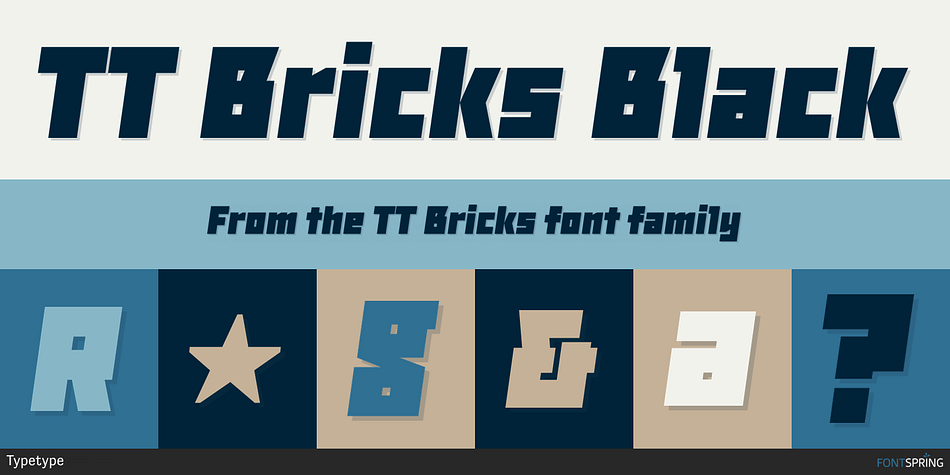
TT Bricks Black
TT Bricks is a sans serif font family. This typeface has sixteen styles and was published by Typetype.
Do you love the early Soviet visual culture as much as we do? We’ve tried going back a hundred years and rethinking the constructivist era. We’ve created an extensive fontfamily that consists of the simplest triangle and rectangle forms.
The TT Bricks font family includes 16 weights: Hairline, Thin, Light, Regular, Medium, Bold, ExtraBold, Black and matching Italics.
Regardless of its Soviet past, TT Bricks is a very fresh and visually powerful fontfamily that perfectly fits the contemporary media landscape. TT Bricks is perfect for mobile apps and corporate websites, as well as for printed press layout. Thanks to the exaggeratedly simple forms of all signs, TT Bricks looks great in very small type sizes